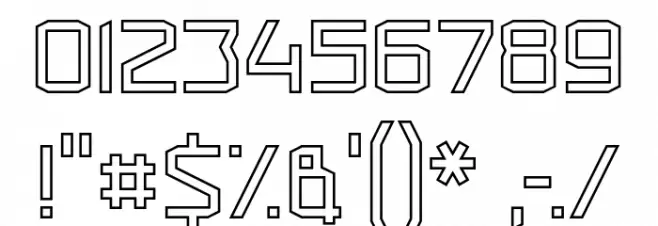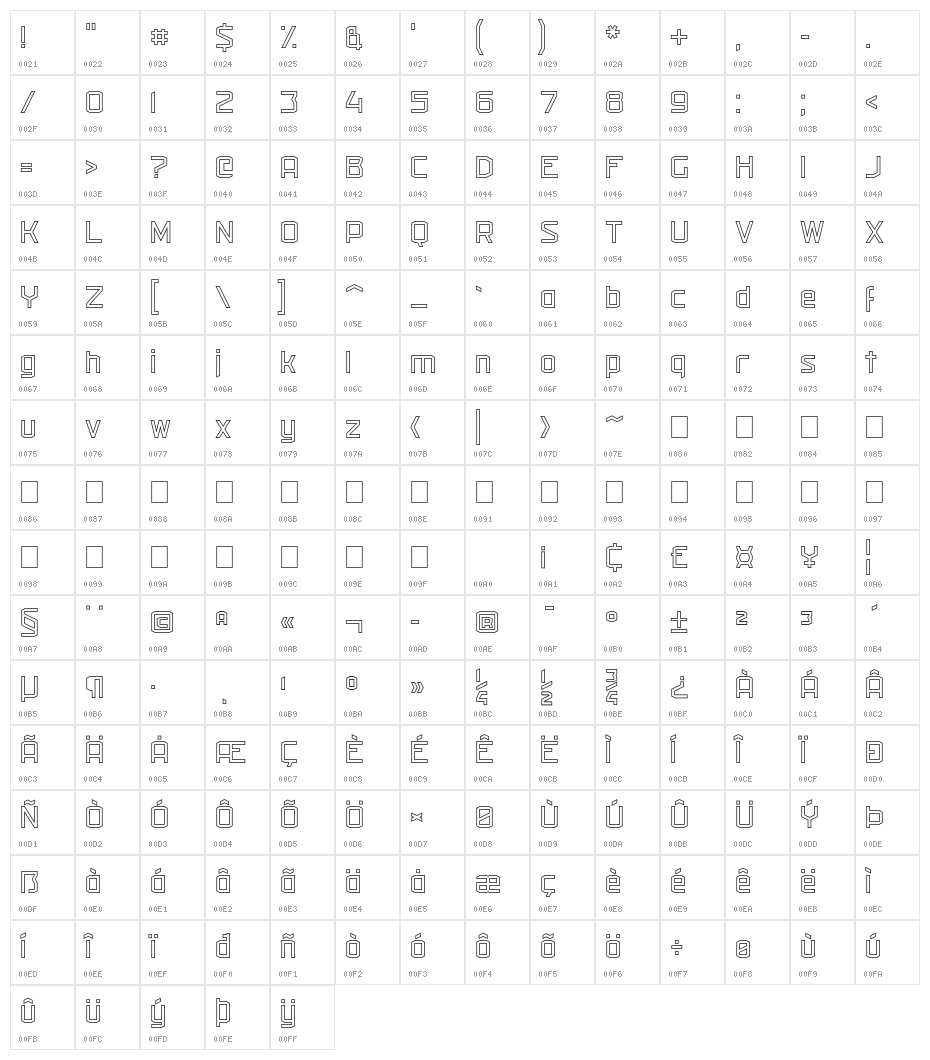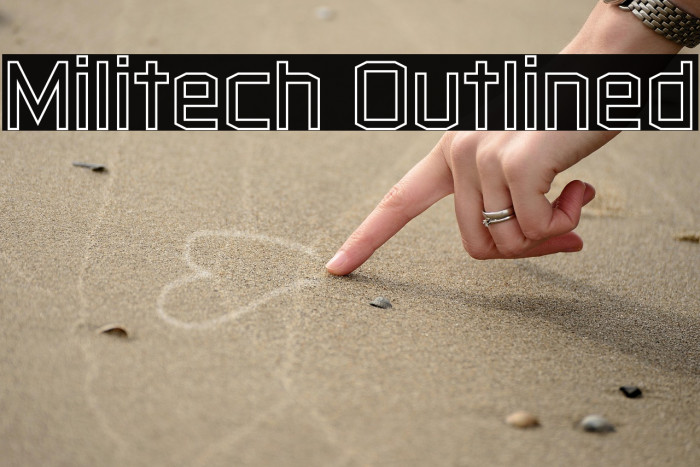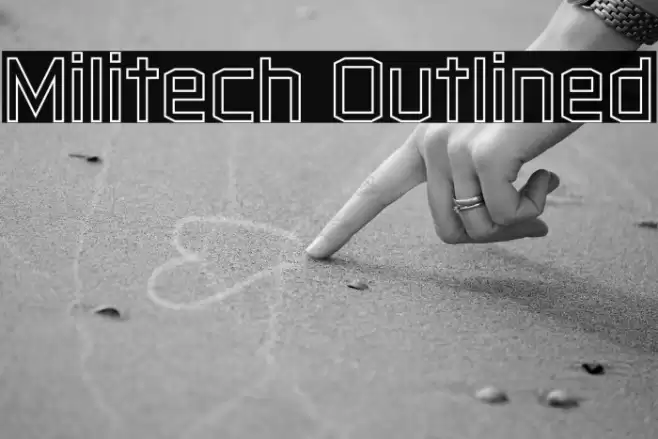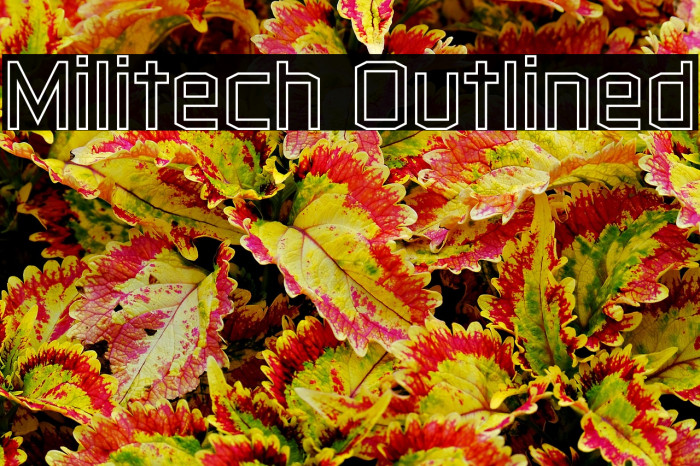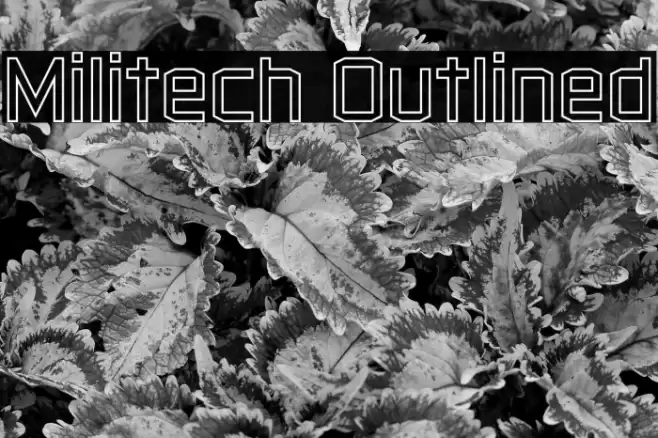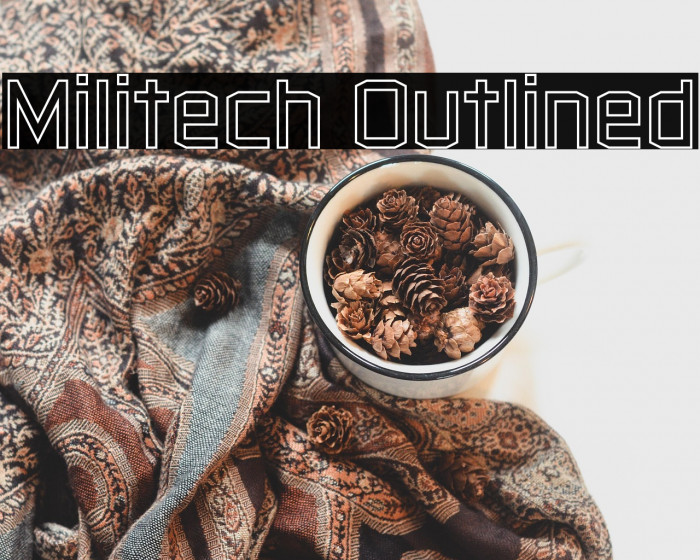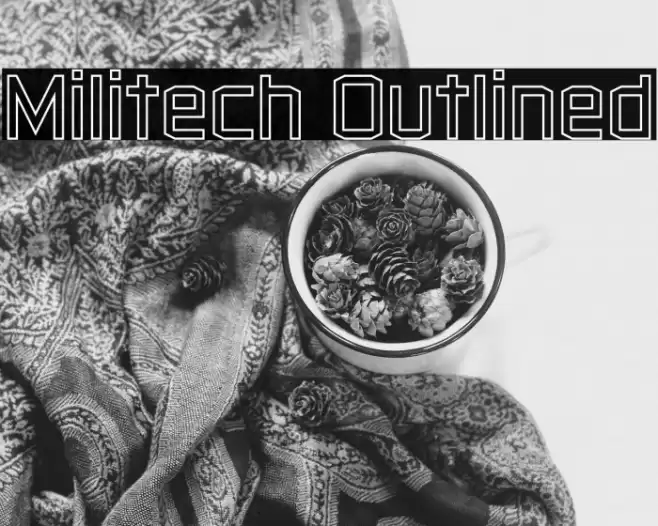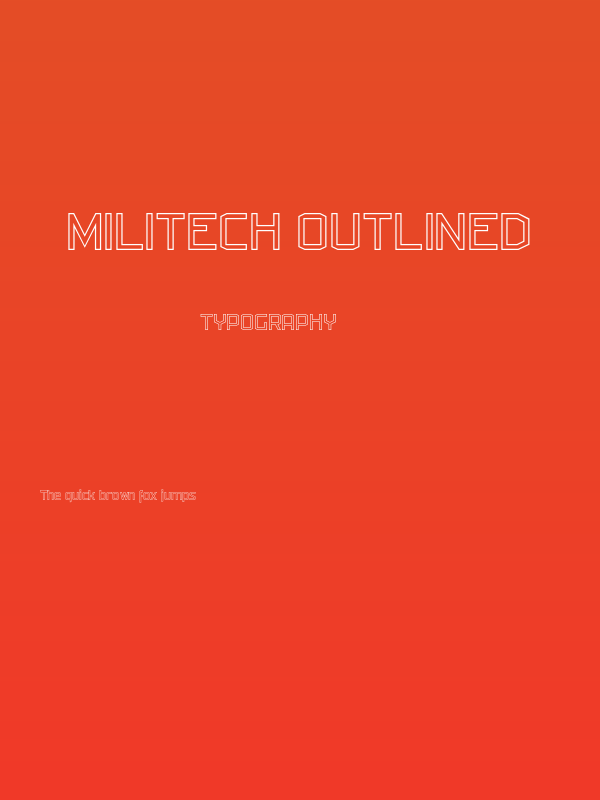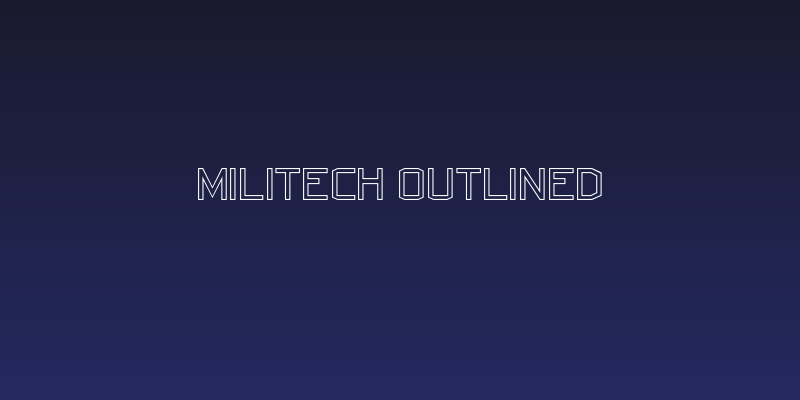
Militech Outlined Font
Militech Outlined Description
This font features a bold, geometric outline style that gives it a futuristic and technical appearance. The characters are constructed with straight lines and sharp angles, creating a sense of precision and modernity. The uppercase and lowercase letters maintain a consistent width, contributing to a uniform look across the typeface. The numerals and special characters follow the same design principles, ensuring visual harmony. This font's outlined nature makes it stand out, ideal for projects requiring a strong, impactful visual presence. Its clean lines and structured form make it suitable for technology-themed designs or branding.
| Proposed Projects | Ideal for technology branding, futuristic posters, video game titles, and sci-fi themed designs. |